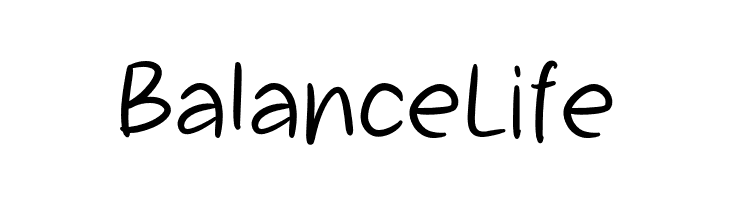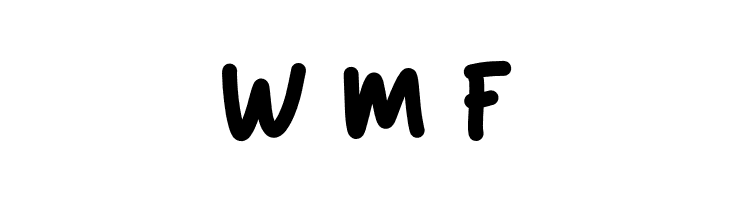
( Fonts by zamjump )
A playful, bold font with rounded edges and a hand-drawn aesthetic.
( Fonts by VinType )
A bold, playful handwritten font with rounded strokes and a friendly appearance.
( Fonts by Calligraphy Fonts )
A playful, inline decorative font with a bold and dynamic style.
( Fonts by Calligraphy Fonts )
A playful, hand-drawn font with bold strokes and a whimsical style.
( Fonts by Yahdi Kumala )
A bold, playful font with exaggerated curves and angles, ideal for dynamic designs.
A bold, rounded font with a playful and chunky style.
( Fonts by Display Studio )
A bold, playful font with decorative cutouts and a whimsical style.
A bold, playful font with thick, rounded strokes and a hand-drawn appearance.
A bold, cartoon-style font with a 3D shadow effect, perfect for playful designs.
( Fonts by Stefani Letter )
A bold, graffiti-inspired font with sharp angles and an urban aesthetic.
( Fonts by fogman_roman )
A playful, blocky font with a hand-drawn, geometric style.
A bold, geometric font with playful, rounded characters.
( Fonts by Stefani Letter )
A bold, playful font with a hand-drawn, whimsical style.
( Fonts by share font )
A playful, bold font with rounded, bubbly characters perfect for creative projects.
( Fonts by wep )
A playful, bold font with a hand-drawn, whimsical style.
( Fonts by Gassstype )
A bold, playful font with a hand-drawn aesthetic and rounded characters.
( Fonts by VinType )
A playful, bold font with cartoonish, rounded characters and thick outlines.
( Fonts by Ake Thanantreesak )
A playful, hand-drawn font with bold, rounded edges and outlined characters.
( Fonts by Stefani Letter )
A bold, playful script font with a hand-drawn feel.
( Fonts by Stefani Letter )
A bold, playful font with rounded characters and a whimsical style.
( Fonts by Inermedia Studio )
A playful, bold, and bubbly font ideal for children's content.
A bold, playful handwritten font with rounded characters.
( Fonts by NihStudio )
A playful, whimsical font with dynamic strokes and charming character details.
( Fonts by Brittney Murphy Design )